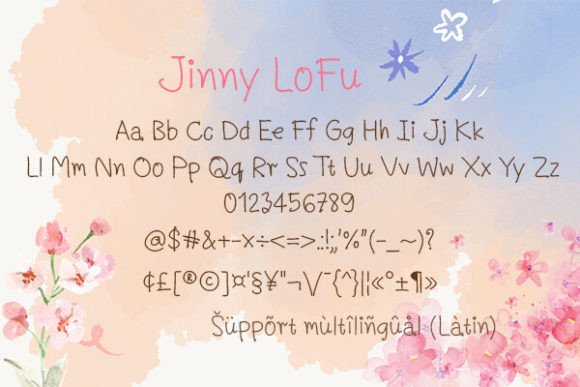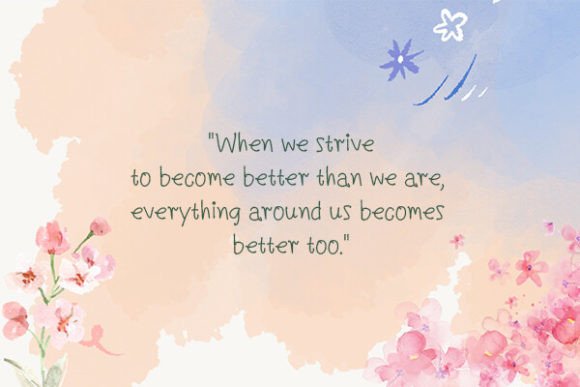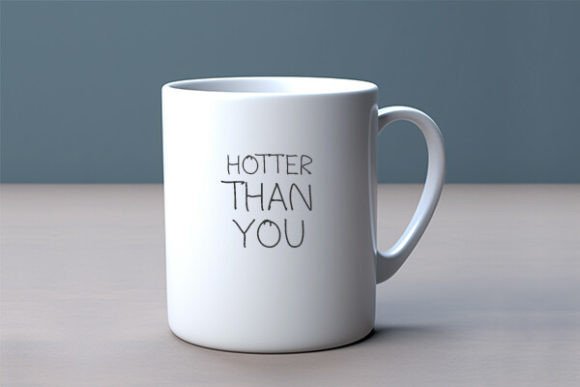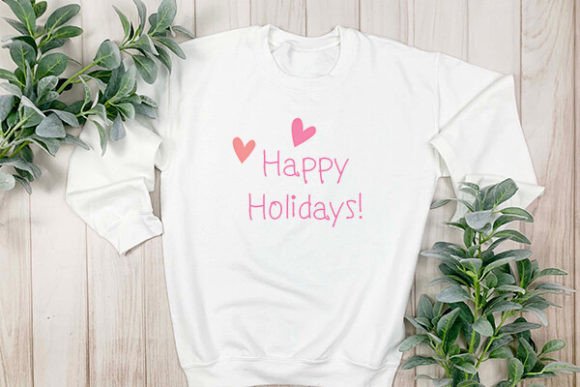
Introduction to Jinny Lofu Font
Jinny LoFu is a charming and bit quirky handwritten font.
It would be awesome to your fun projects or diary planner Let’s try it to your perfect projects such as posters, back to school, wedding, party decoration, invitations, Fall, Christmas, blogs, clothing, child-related designs, greeting cards, social media posts or anything that needs a friendly touch.
Key Features of Jinny Lofu Font
Why Choose Jinny Lofu Font?
Jinny Lofu Font offers exceptional quality and versatility, making it a valuable addition to your design toolkit. Whether you’re creating for personal projects or commercial use, Jinny Lofu Font delivers professional results.